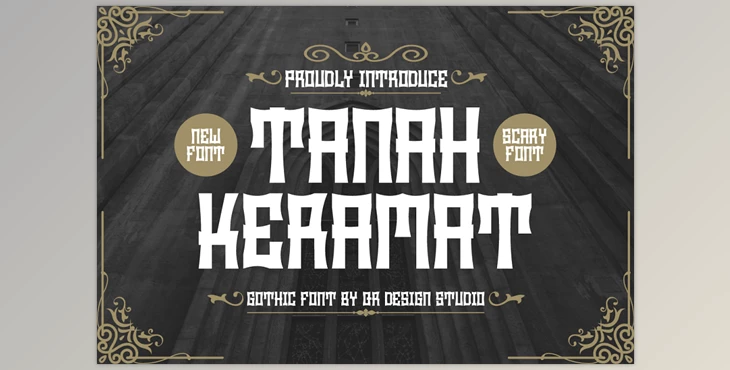
Tanah Keramat - Gothic Font: Discover the allure of Tanah Keramat - Gothic Font, a bold and authentic display font that exudes a captivating presence. This font perfectly fits various branding projects, including those with dark, Halloween, sports, or logo themes. Its versatility ensures it stands out in many contexts, making your designs exceptional.
Let Tanah Keramat - Gothic Font be the cornerstone of your design journey, adding a touch of boldness and authenticity to your creative projects.